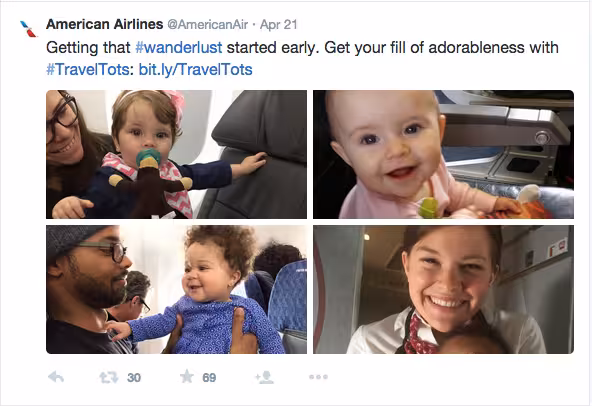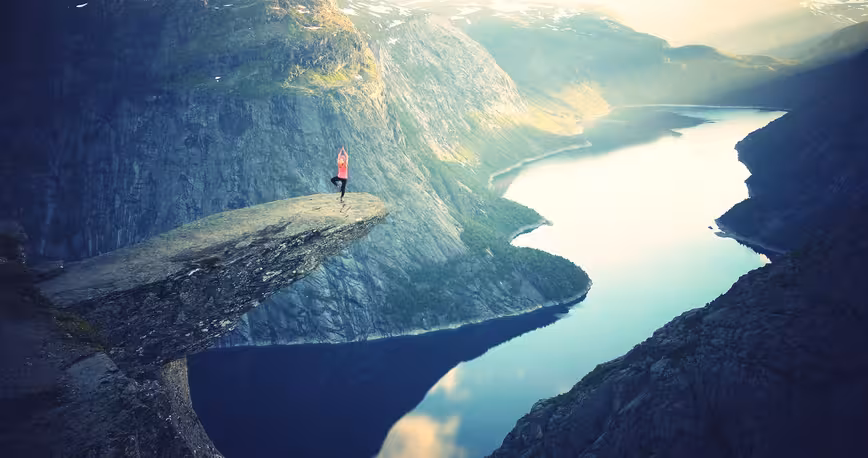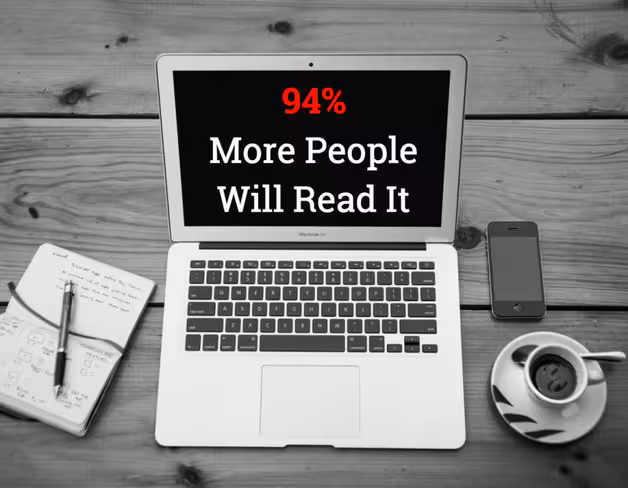
If you’ve been looking to supercharge your social media strategy, you probably know a lot about the benefits of using images.
But, how much do you know about actually creating scientifically shareable images?
Turns out, there’s tons of actionable, research-backed advice on how to create social media images that get shared—the ideal colors, fonts, text, and more, all leveraging what we know about design, psychology and the Internet to get more shares and engagement.
By the end of this article you’re going to be fully aware of how to make images that your readers can’t help but share. All backed by science.
What Makes A Shareable Social Media Image?
A shareable social media image is made up of five components:
- Emotion: When your readers feel it, they’ll share it.
- Relevance: Your image should not only fit your niche, but fit your audience too.
- Colors: Using the right colors, to get maximum shares.
- Typography: Choosing a font that not only looks good, but also says what you’re trying to say.
- Hashtags and Text: Using the right words, phrases and hashtags that will make your audience interact.
In this article you’re going to learn how you can take advantage of all of these elements, and put them together to create the best social images you possibly can.
1. Emotion
Create Epic Content (Or Nobody Will Share It)
Before I carry on, there’s one thing I do need to mention:
You need to treat your images as content.
And not just any sort of content. I mean the epic kind, that’s going to add a ton of value to your reader’s life. Because that’s the only content people share, right?
If you’re creating images because you feel you need to – and just scatter them throughout your news feed – you’re not going to get anywhere.
Your images should:
- Back up points you’ve made
- Show statistics
- Provide tweetable (or valuable) quotes
- Add depth
- Go above and beyond the content you’ve written
So, be sure that the images you use – or make – aren’t just there for the sake of it. Treat them as content and put a high value on what goes on them.
What Makes An Image Emotional (And Shareable)?
Emotion is the biggest piece of the sharing puzzle. And it’s the driving force behind all five points on this list – so it deserves a lot of attention. So, what makes an image emotional?
As it turns out, there are a lot of factors:
- Color: Studies of abstract art have shown that the way color is used and distributed across a piece controls the emotions you feel. For example, black creates feelings at the despair end of the spectrum and bright primary colors can create joy and happiness.
- Font Choice: You’ll learn about this in depth in section four.
- Complexity: This isn’t about complex designs – more on that next – but emotional complexity. Research shows that the more feelings your images can convey,the more viral it will go.
- Showing one of these five things: Research from Harvard studied what makes marketing campaigns, and their images, go viral. They found that: Admiration, Interest, Serenity, Amazement and Astonishment were the most shared emotions.
Simple Designs, Big Emotions
You don’t have to be a graphic designer to create solid social media images. In fact, far from it. I’ve run twitter feeds for months without a single minute of design under my belt.
All it takes is a little knowledge of how design works, and what it takes to make something your audience wants to share.
Firstly, there isn’t a magic bullet of design that goes viral. At least not to the current research. But there is a principle of design that, when harnessed, can go a really long way.
Simplicity.
The psychology of design shows that people are most responsive – and more likely to engage – with images or logos that are laid out in a clean and simple way. That’s because if people are presented with too much information, it can be overwhelming and force them to switch off.
For example, this study on smoking warnings showed that when smokers were presented with too much graphic or negative information, they were actually more likely to smoke because they paid less attention to the images.
Basically, simple designs cut through the noise and make your message easier to digest.
Which of these two images is easier for you to process, and has the biggest impact?
This one:
Or this one:
The second one right? It’s a no brainer. Clear and crisp cuts it. Two colors, one font – that’s it.
There’s no arguing with the message either. It goes right through the noise, and into the hearts (and minds) of your reader.
If you look at most articles on highly shareable images – like this one from Jeff Bullas – all the ‘types’ of image have this simplicity in common too.
You don’t need to go too far to see it in action either. All it takes is a quick glance at the Buffer twitter feed to see simple, clear and crisp layouts getting a lot of shares:
Here’s some simple tips on how to create simplicity, and powerful emotion, in your images:
- Less is more: Don’t give your audience too much to look at.
- Focus on clarity: Is the message you’re trying to create easy to see?
- Use plenty of white space: If in doubt, leave it out. Empty space isn’t wasted; it can actually add power to your designs.
- Few filters and effects: The less filters and special effects you use, the better.
- Don’t be scared to use a premade template: Apps like Share As Image and Canva both come with templates you can use to fit your purpose.
It’s also really helpful to know the sizes for each platform you’re using too. But, there’s a wonderful – and constantly updated – guide to that right here.
2. Relevance
Choosing A Relevant Image
Relevancy is important in content marketing. Making sure that what you’re doing fits who you’re doing it for. But, never has that been more important than when you’re choosing an image.
Let me explain:
90 percent of the information the brain processes is visual, and it’s processed 60,000x faster than anything you read. That means when your brain first sees an image, it’s trying to join the dots between what you see and what you should be seeing.
Essentially, your brain is trying to figure out if the image makes sense.
If the image doesn’t fit your:
- Brand
- Niche
- Status Update
Then you’re going to drive your audience away from the image—and the share button—and right onto the next post in their feed.
And while standout images that don’t make sense might make your reader stop and look, it’s not going to make them share. Which is why you’re here, right?
I want you to flip your thinking on choosing an image. Instead of looking at it as, “Does this make sense for me to share it?” I want you to think of it this way:
“Does this make sense for my audience to share it?”
Which might sound like a small adjustment, but it makes a big difference to how you look at images. Because, you have to then consider how that image would look to their community, as well as your own.
To get a feel for what’s relevant, and what’s not, you you need to do a little research into your own niche and the authorities who are sharing images. And, the images their followers are sharing.
Take a couple of minutes to try this activity:
- Head to Twitter
- Find five authorities in your niche (or business competitors)
- Look at the pictures they share, that have been retweeted
- Make notes of the similarities between those images
- Find where they fit for your content
But, What If We’re Not Visual?
Good question, well phrased.
What counts as relevant for a company with, well, nothing relevant to photograph? Well, there’s one thing you and your audience have in common:
You’re both people.
Take the American Airlines twitter feed, @AmericanAir. There’s not too much that’s visual about their business, but people use their services every single day.
So why not photograph them having a great time doing it?
All relevant really means is that your images have to make sense to the reader. And, if you’re a company who can’t find a visual representation of what you do, use the failsafe of showing people enjoying it.
Are Abstract Images Relevant?
Abstract images – visuals that make their point through representation – get used a lot around social media. For example, Buffer uses them a lot on their social feeds.
But do they count as relevant images?
The answer is: it depends on the goal.
As Kevan discussed in this article on creating twitter visuals, abstract visuals can still have an impact on shares and engagement, because any image is better than not using an image at all. But, as you saw earlier, simple designs have a big impact.
So if you just want to increase engagement and make a point, you can use abstract images all you want.
However, if you’re looking for maximum shares and engagement, your best choice is to go with a clear explanatory image—or a simple, easy-to-digest design—so the reader has to do less work to figure out what you’re trying to say.
Relevance Is In The Eye Of The Beholder…
A few weeks ago I went to the theatre to watch a comedy show. The guys on stage picked apart comedy through the ages—from Cavemen through to Chris Rock—and talked about what makes comedy funny. And about halfway through the show they said a line that has never left me:
“It’s not about what makes you laugh, it’s about what makes the audience laugh”
The same can be applied to content, and the images you’re creating. It’s not about what you would share, it’s about what your audience would share.
When you’re choosing or creating your images, ask yourself these questions:
- Does this fit my niche?
- Does this fit my brand?
- Is it easy to understand?
- Does it make sense for my audience to share this?
If you can answer yes to all of these questions, you’ve got a relevant image that your audience can respond to.
3. Colors
The Three Colors You Need For The Most Shares
Colors are powerful.
In fact, according to Neil Patel, they make up 85 percent of the reason you choose to buy a product. And from a quick glance at my bookshelf, over half of all the books I’ve bought on impulse have orange on the cover—a color that fuels the impulse emotion.
There’s been a lot of research into how different colors affect people from different cultures and places, or how they can back up a point that’s being made.
For example, here’s a great infographic about the impact of different colors on people from around the world.
But, not much has been known about how colors impact readers sharing habits:
Until now.
A recent study from Georgia Tech examined over 1,000,000 Pinterest images between 2009 and 2011, and looked at the color trends between the highest and lowest shared images.
The results?
- Red, Purple and Pink promote sharing
- Green, Black, Blue and Yellow all stop people from sharing
That’s because those three colors—red, purple and pink—all drive carnal, visceral emotions, such as failure and sexual arousal, in both men and women.
When you’re creating your next image, then, try making the points you want to stand out in either of these three colors for maximum shares.
How To Use These Colors In Images
Now you know the colors that work, that doesn’t mean you suddenly have to start drowning your images in Red, Pink and Purple. Instead, try to use the colors to make standout points in your images.
Take a look at this image I created for the Share As Image Blog, on why you should add images to your blog posts:
By highlighting the important pieces of information, this image alone brought in over 60 shares (out of 125) for the piece. It’s a simple tweak, but by making the points you want your readers to resonate with in those shareable colors, you can create a nice spike in your shares.
But, what if your image doesn’t have text?
You can still apply the same principles by making the focal point of your image stand out in one of those colors, too:
Or you can adjust the background to the image you’ve used:
The idea is to work these colors into your image where they fit, not to just force them in there because you feel you have to. These colors will increase the shares you have, but don’t damage your content just to make use of them.
4. Typography
Choosing The Right Font
It’s easy to think that your font is a simple design choice.
But the truth is that it’s the body language of your image. It says a lot to your reader without you even realizing it.
Not sure what I mean? Take a look at this image:
There’s a huge difference between the two, right?
Fonts have been shown to impact everything from your political beliefs, to whether you’re an optimist or a pessimist and how long someone will read an article for.
But what do they have to do with how your image can get more shares?
Simple. It’s all about emotion. Creating it can:
- Motivate readers
- Drive decision making
- Make people share
So, it boils down to the message you’re trying to put out – and the emotion you want to evoke. This slideshow has a great list of fonts and the emotions they create:
The Quick Guide To Choosing The Right Font
The aim here is to think beyond the words you’ve written; and make sure the font is a match for what you’re saying. Doing that isn’t as complex as you’d think, though. Here’s a simple three step guide to help you choose the best font for your image:
- Decide on your emotion: You’ve already seen how emotion is a driver behind sharing, so be clear on the emotion you want them to feel.
- Create the designs three times: Find three fonts you like that fit your message. Then, create the design three times and compare them to each other. I find going away for a coffee break and coming back makes this decision much easier.
- Choose the most readable font: If your audience can’t read it, you’ll struggle to get your message across. Avoid the prettiest font, and choose the one with the most power over your audience.
5. Hashtags And Text
How to Optimize for Maximum #Power and Success
Okay, now you’ve seen the emotional power of choosing the right font. But what about the text you’ve actually written – how do you optimize that for sharing success?
Well it turns out there is no magic formula for text on images. All it really has to do is answer these questions:
- Does it fit my layout?
- Does the font fit the message?
- Is it relevant?
- Will my readers care about it?
The more powerful the message, though, the better the chance of the image being shared. For example, take a look at the This Girl Can campaign from the UK.
Their marketing strategy was simple: use motivational pictures of real women with a strong message on top, to spread the message – and increase the awareness – of women in sport and exercise.
The results are staggering:
And, they’re not only staggering from an emotional point of view. They managed to build a 62,500 person following in less than a year, and the engagement on all of their updates is high too.
Although the original message isn’t a Hashtag on the image, it’s still become one that their followers use every single day.
But, what should you do if you don’t have a Hashtag or message? Don’t worry; you can still get up to 847 percent more shares.
By using quotes in your image, you can take a boring mundane tweet and turn it into a really powerful image. As long as it fits the above checklist, of course. Take a message you want to share, and quickly turn it into a shareable social media image, like this one:
Let’s Get Shareable…
Okay, let’s do a quick round-up of everything you’ve learned so far.
An image needs six elements to get shared:
- Emotion: Your audience needs to feel something when they look at your image.
- A simple layout: If you do too much, you turn them off and away from that share button. Keep it simple, clear and easy to digest.
- Relevant imagery: Your stock photos, backgrounds and filters should all make sense and tie in with your niche or branding. If they don’t, it doesn’t make sense for the reader to share it.
- The right colors: Use the colors that best match your brand, but don’t forget to make the most of Red, Pink and Purple to get the most shares.
- A powerful font: Make sure the words you use match up to the font you choose. Don’t make your image send the wrong message.
- Text or hashtags: Quotes are the most powerful, but having a powerful message or hashtag can create a lot of viral potential.
Where do you go from here? Well, I’ve got a little task for you, if you choose to accept it. Don’t worry, this blog post won’t self destruct if you don’t.
- Open an image creation app (if you want speed, I’d recommend Share As Image)
- Choose a template that fits the platform you use most
- Create an image, using the principles above, for your next update